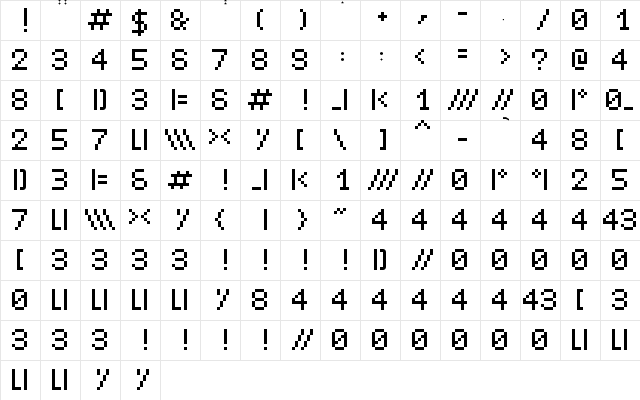
LeetSpeak Regular
Design Context for LeetSpeak Typeface
LeetSpeak takes a measured approach to typography — its balanced proportions and neutral character make it a reliable workhorse for both digital and print work.